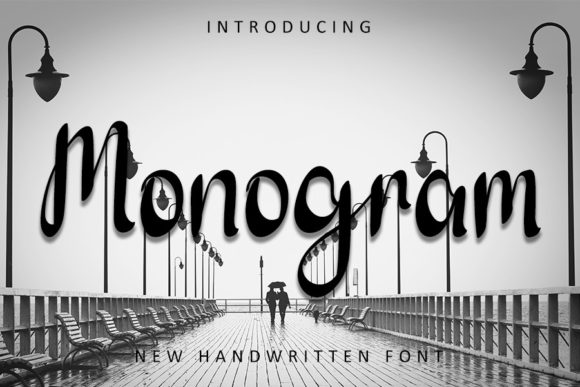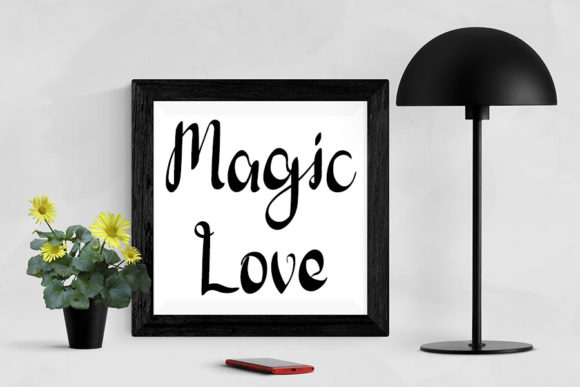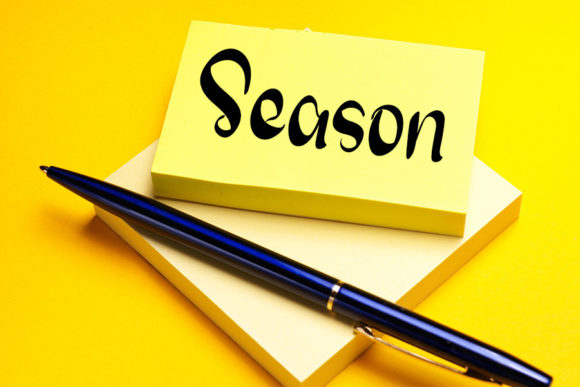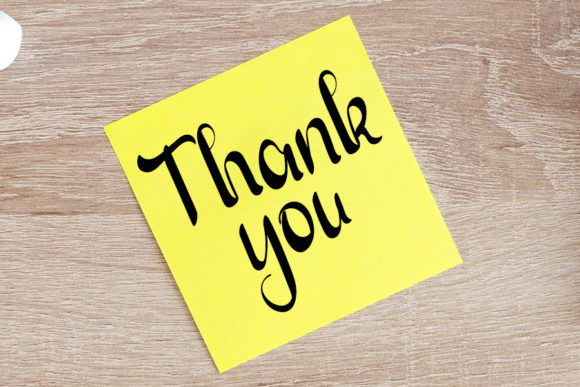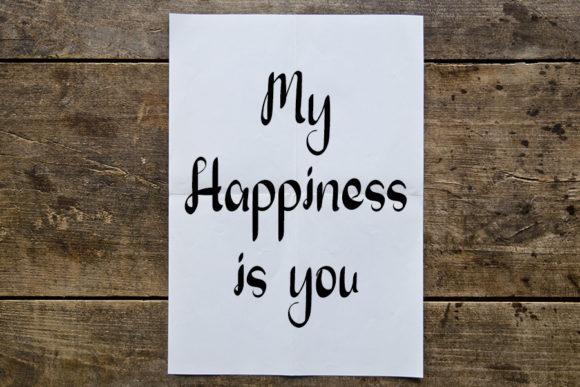
Monogram Font
About Monogram Font
Monogram is a stylish handwritten font with a contemporary atmosphere and impeccable form, inspired by a timeless classic calligraphy. Balanced and varied, this font was designed to enhance the beauty of your projects.